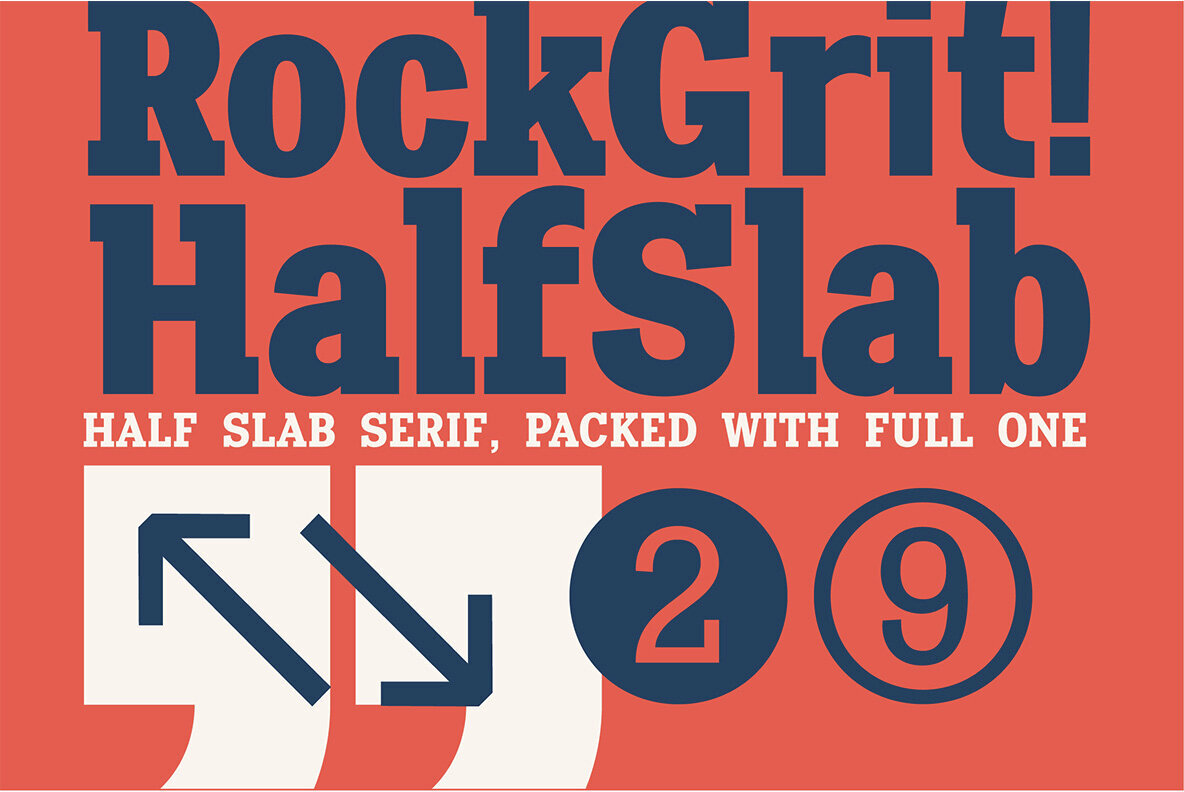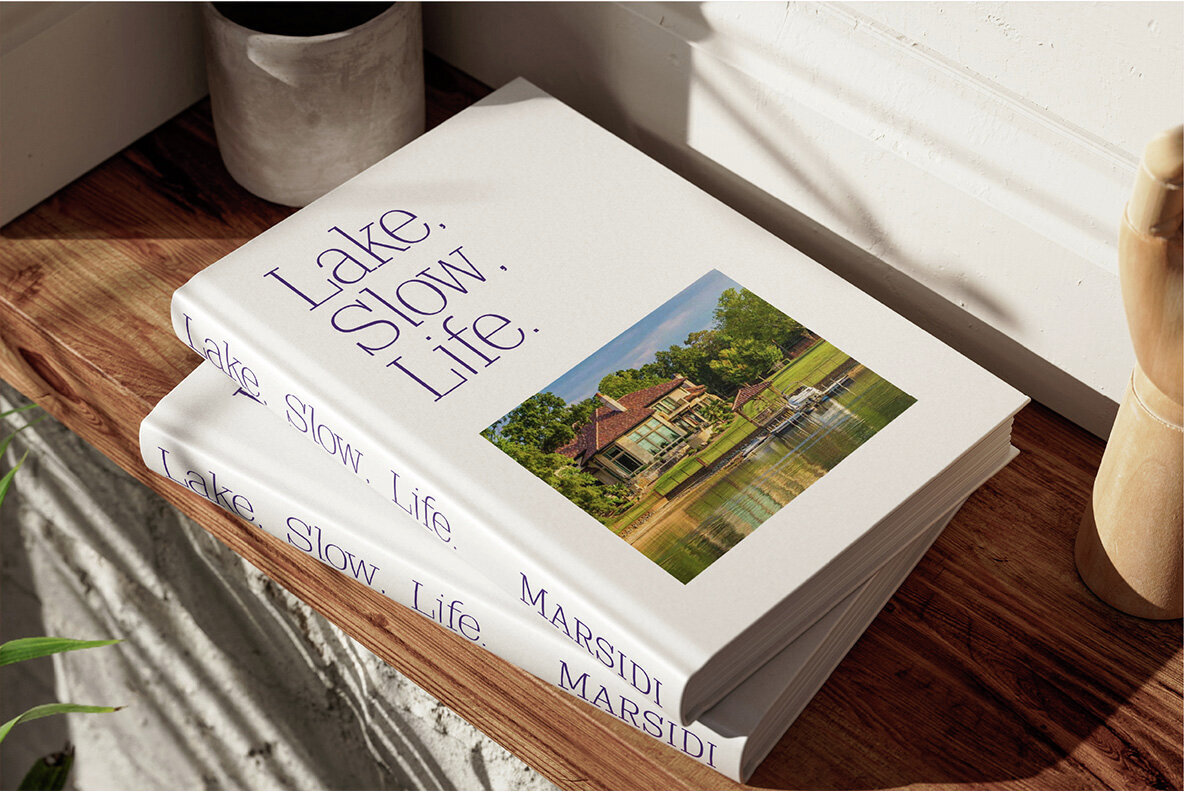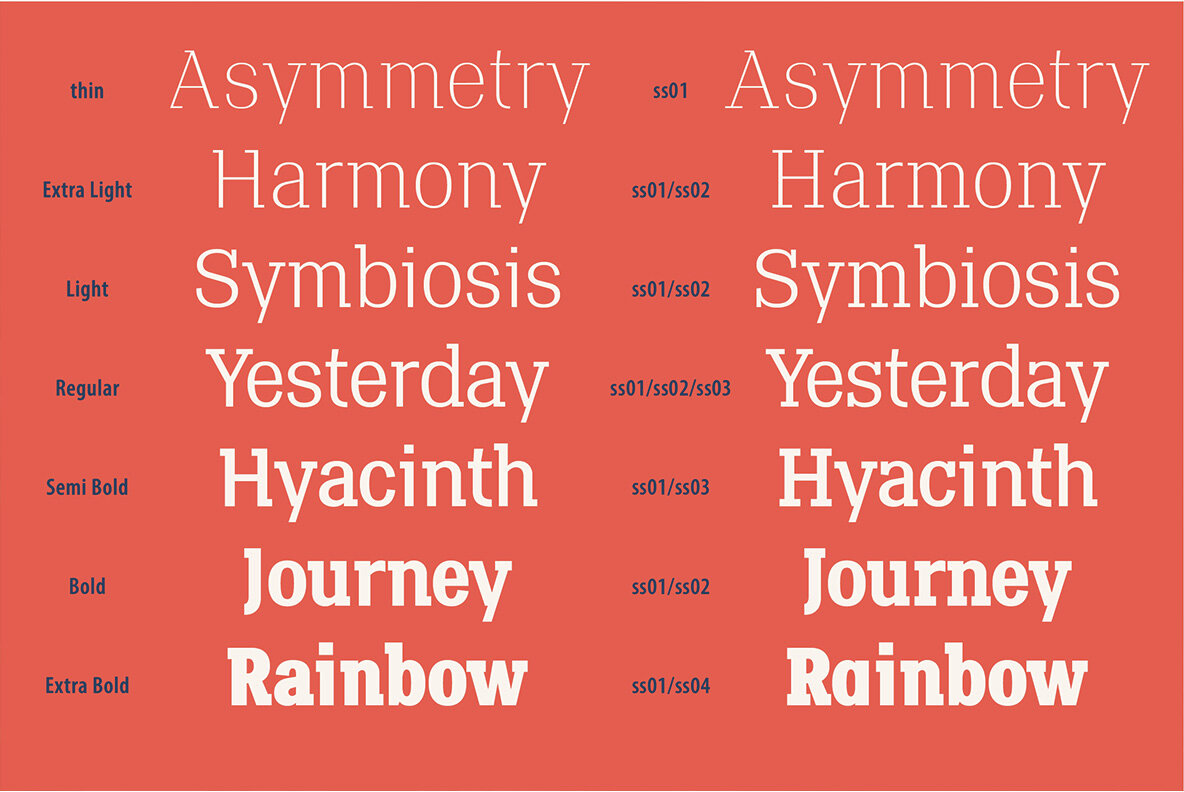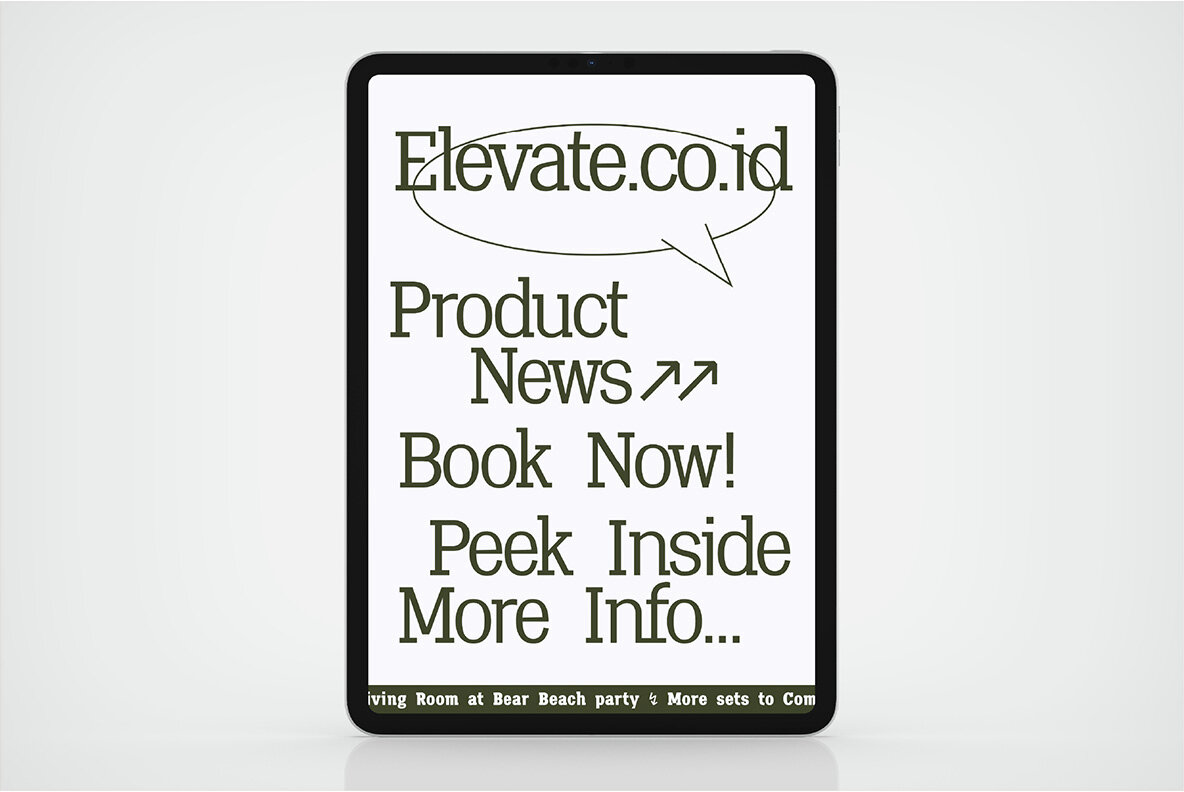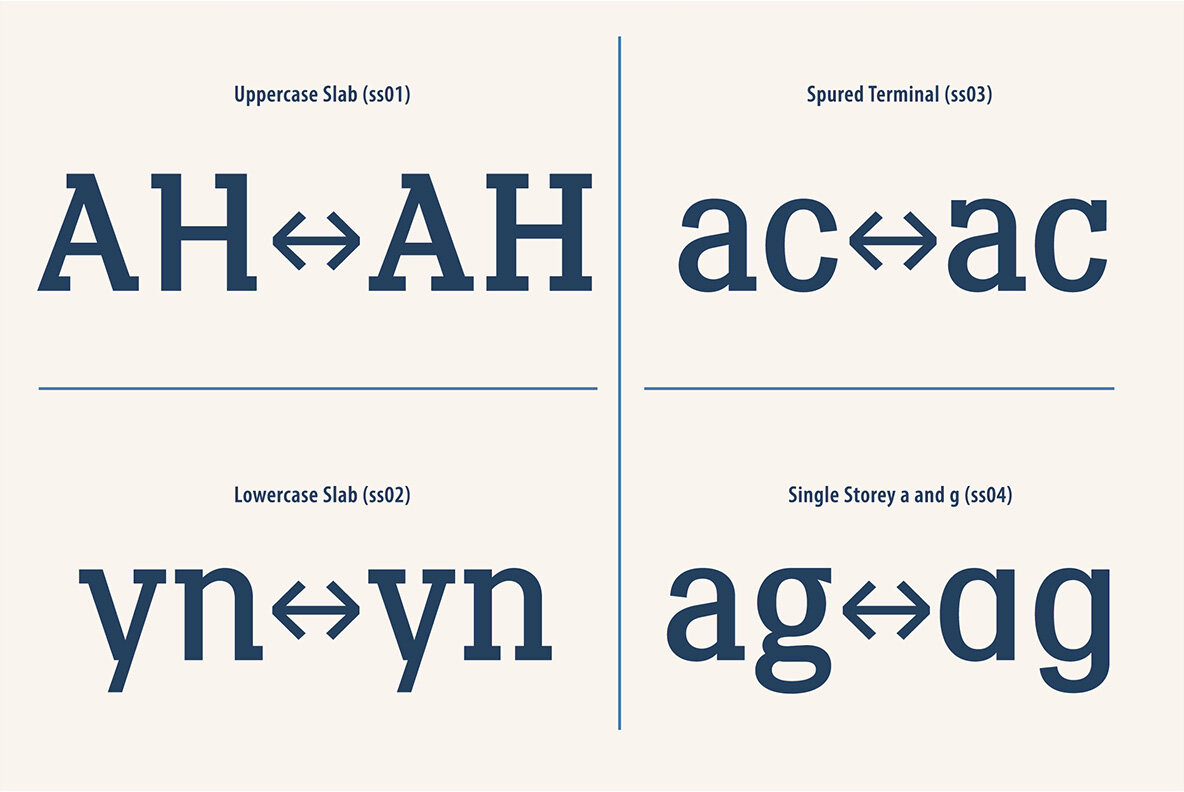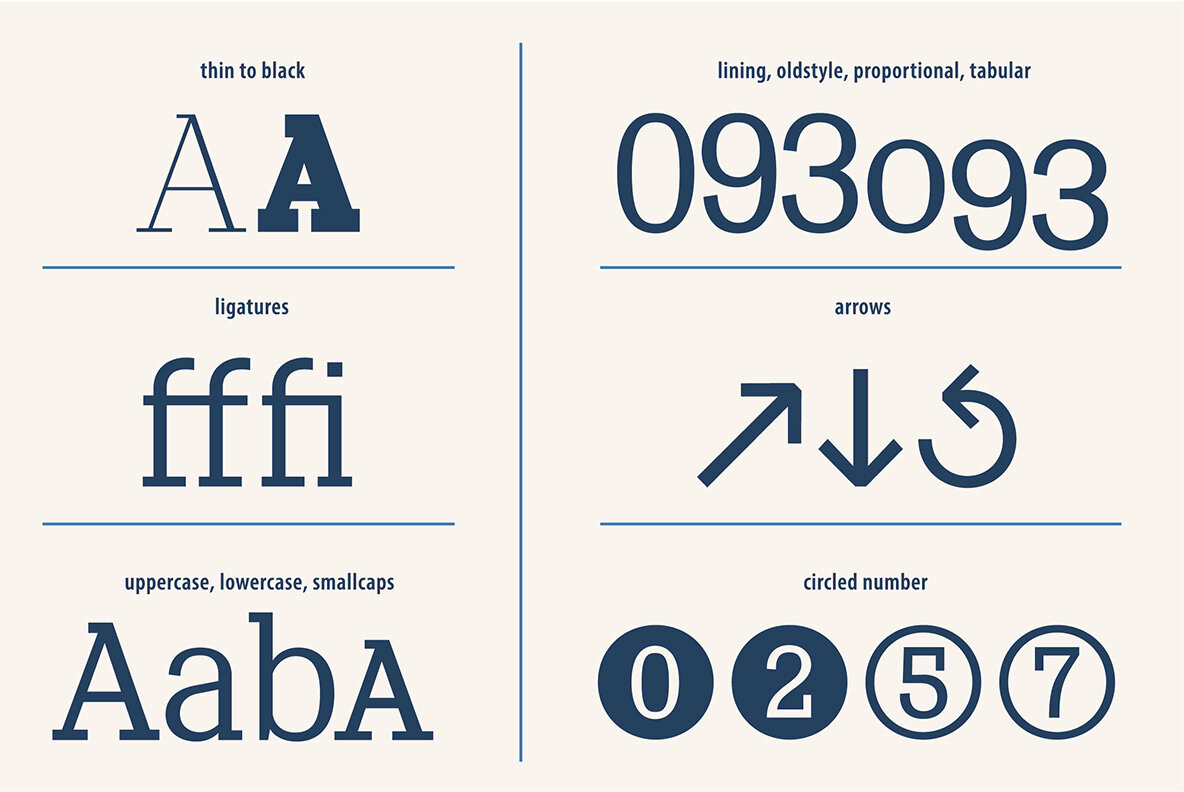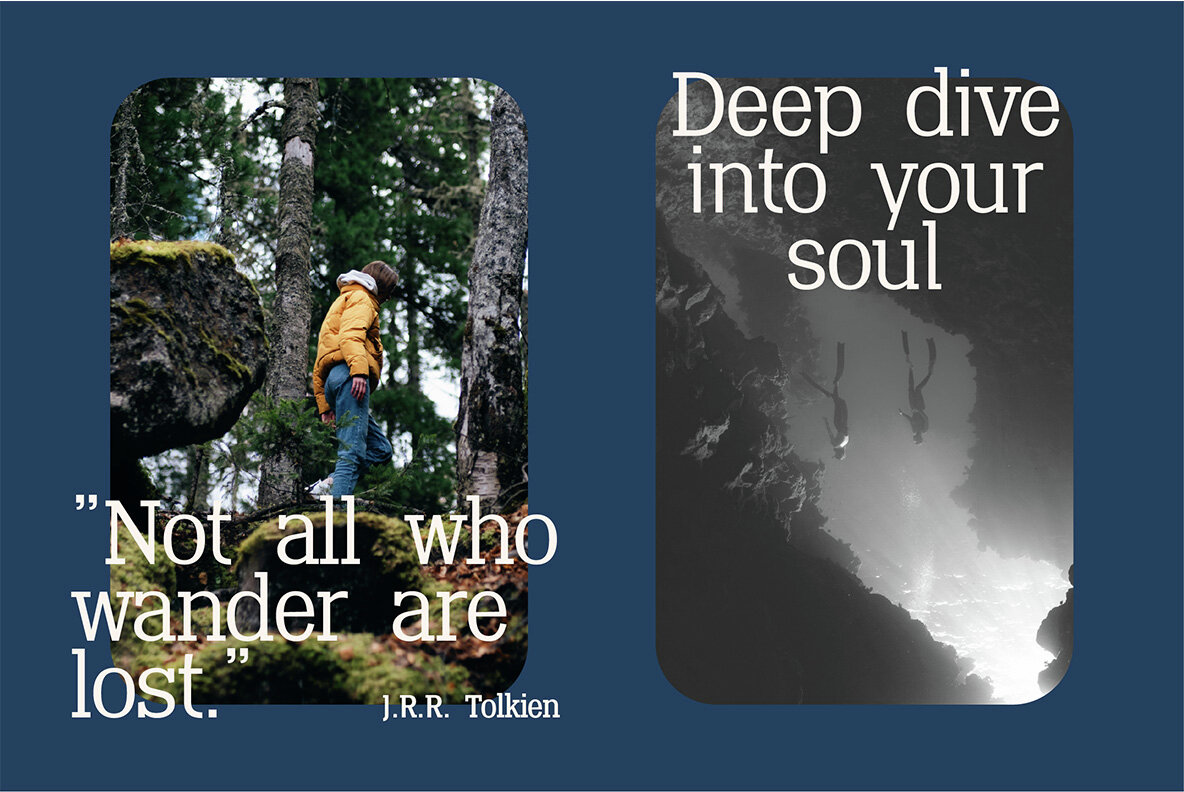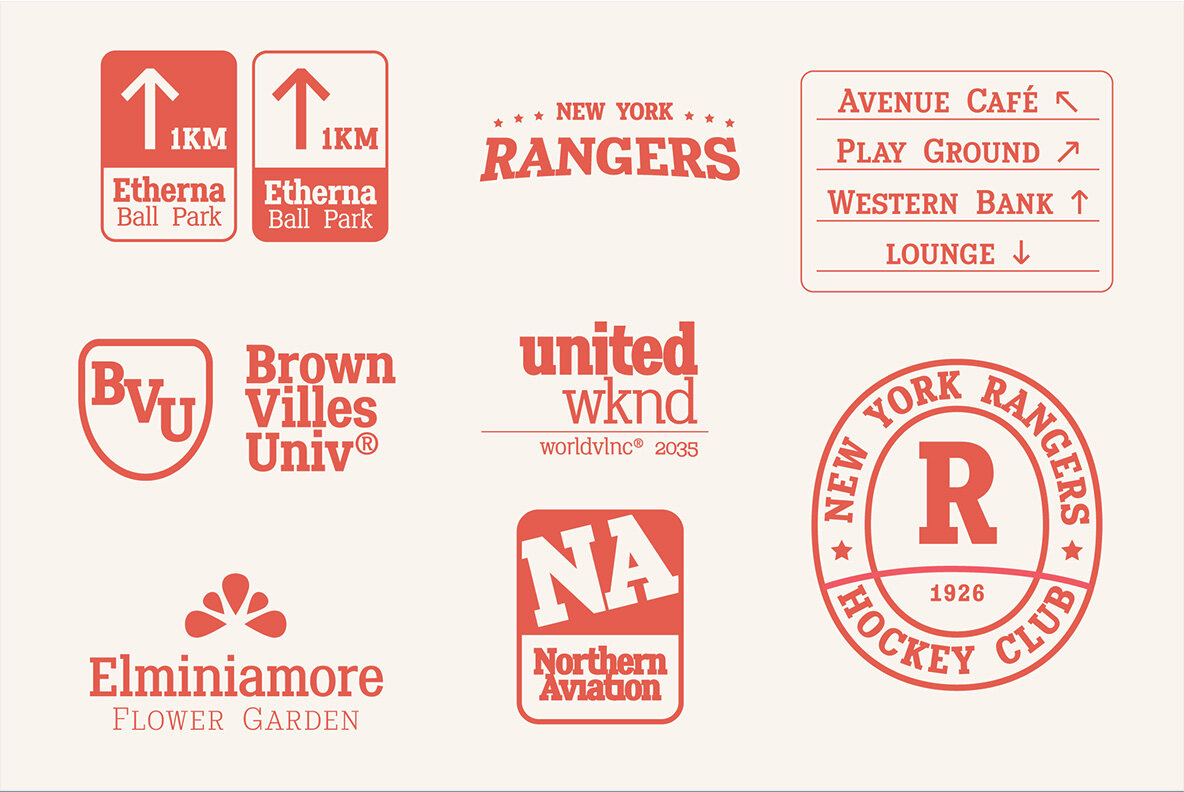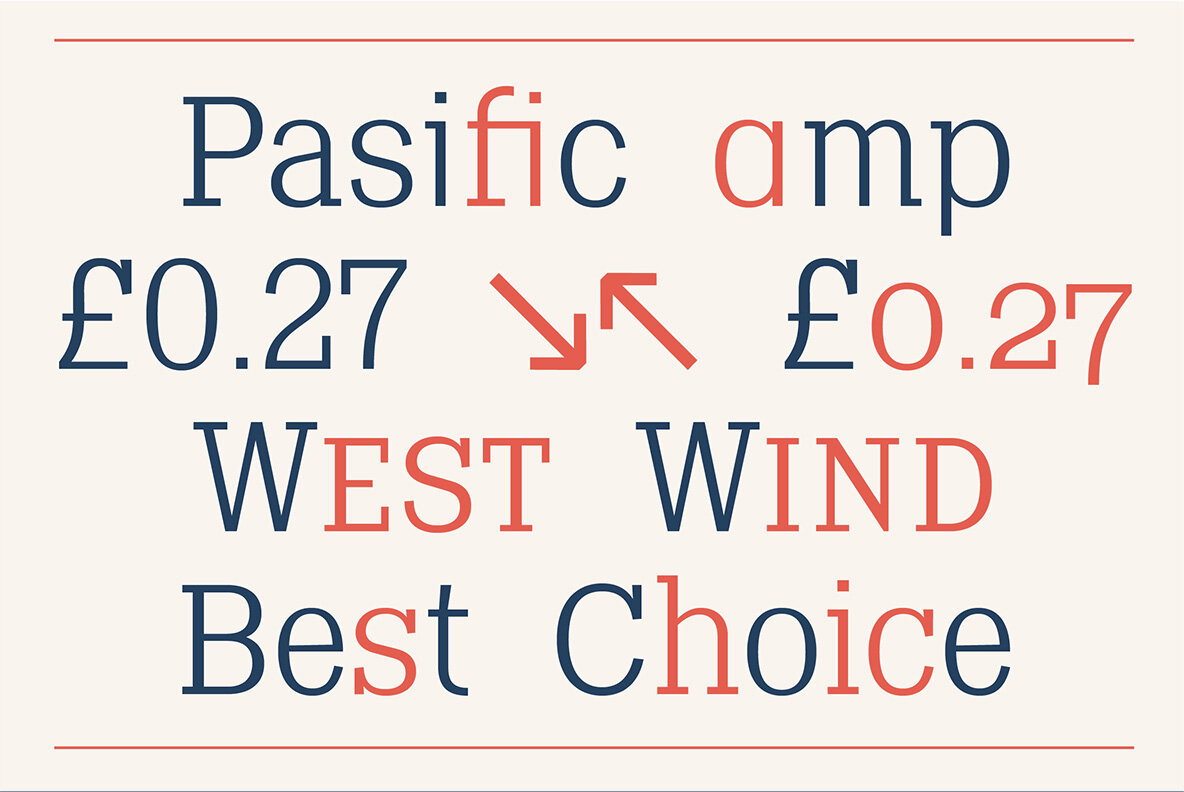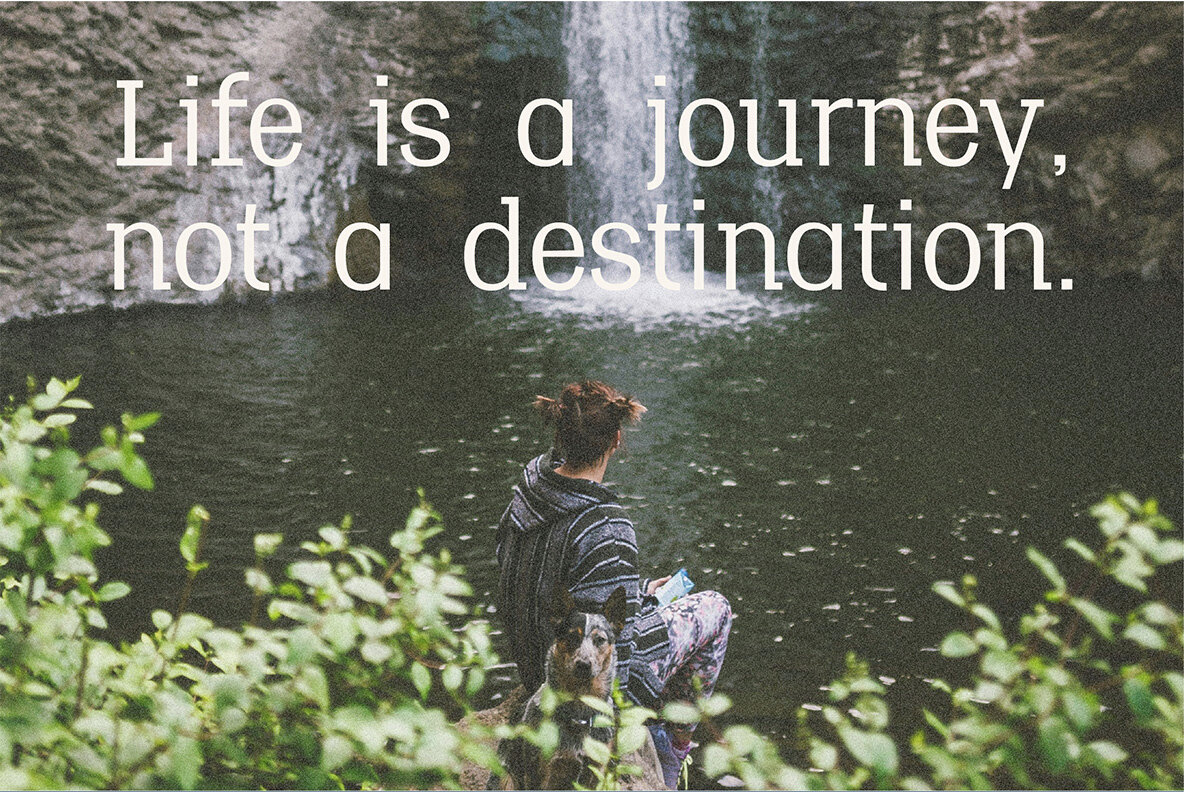
Rockgrit Font
Rockgrit Variable
Unlock the Power of Rockgrit: Tailored for display, branding, and diverse applications, Rockgrit seamlessly blends solidity with modern clarity, ensuring your designs exude professionalism while radiating approachability. Command Attention: From billboards to digital platforms, Rockgrit's versatility knows no bounds. It's your secret weapon for grabbing eyeballs and leaving a lasting impression. Stand Out from the Crowd: In a sea of ordinary fonts, Rockgrit offers a breath of fresh air. Its unique charm and distinctiveness elevate your projects to new heights, making every design a showstopper. Don't Blend In—Rock Out: Say goodbye to cookie-cutter typography and hello to Rockgrit's bold personality. Make your mark in the world of design with this invaluable asset by your side.